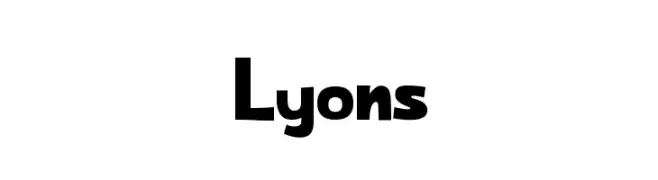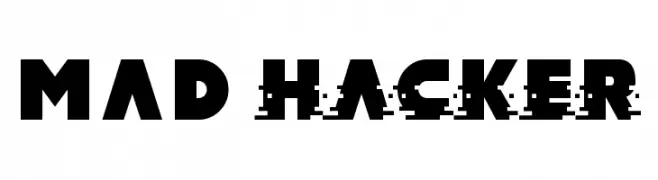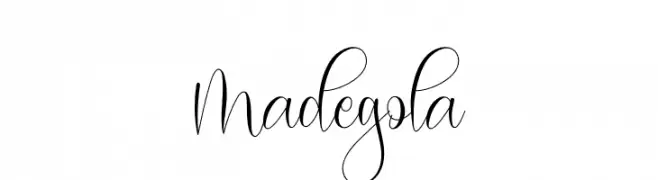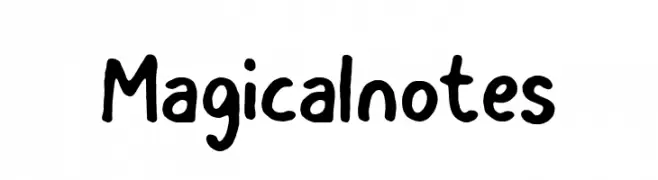
A fluid and elegant handwritten font with smooth, continuous strokes.
A bold, rounded font with a playful and friendly style.
Bold, collegiate serif font with strong, blocky forms.
A bold, geometric font with a modern, edgy aesthetic and a unique glitch effect.
A bold, angular font with a futuristic and aggressive style.
A sophisticated script font with elegant loops and swashes.
A stylish, cursive script font with a modern handwritten feel.
A graceful script font with fluid, elegant strokes and a handwritten feel.
A playful, bold font with rounded, thick strokes and a whimsical touch.
A playful, handwritten font with bold, rounded characters and a whimsical style.